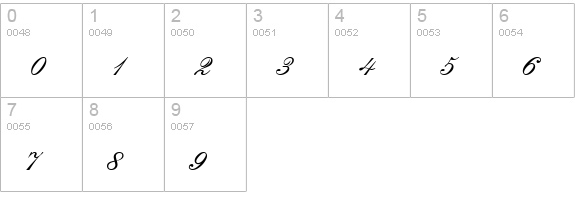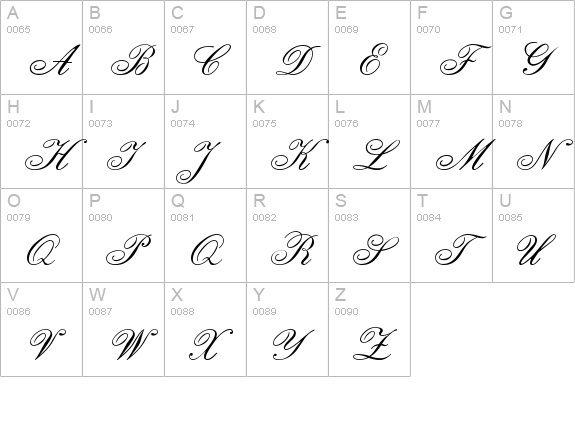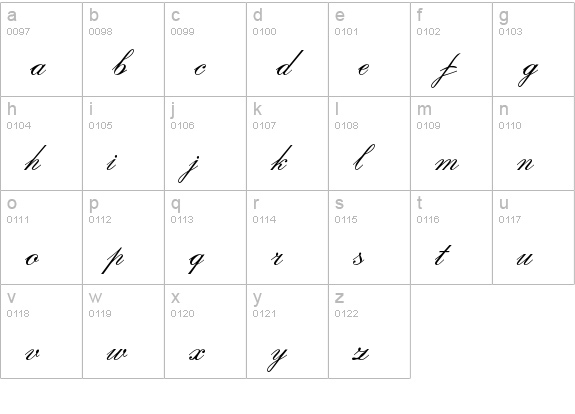
Introducing the elegant and sophisticated English Script font, a timeless typeface that exudes charm and grace. With its intricate letterforms and flowing lines, this font is perfect for adding a touch of class to any project. Whether you're designing wedding invitations, elegant logos, or stylish branding materials, English Script will elevate your work to new heights. The best part? English Script is available for free download at FontsMarket.com, making it easily accessible for all designers and creatives looking to add a touch of elegance to their projects. Don't miss out on the opportunity to enhance your designs with this exquisite font. Download English Script today and let your creativity shine!